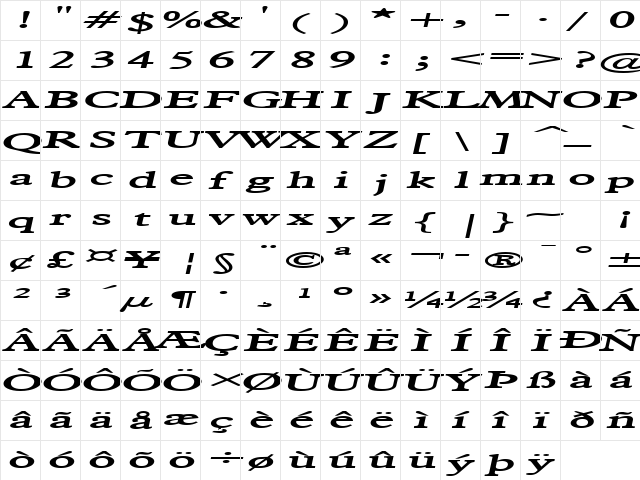
Nadine Extended BoldItalic Font Preview
Design Context for Nadine Extended Typeface
Nadine Extended takes a measured approach to typography — its balanced proportions and neutral character make it a reliable workhorse for both digital and print work. Its italic angle brings a sense of urgency and motion to the letterforms. The heavy weight commands attention and anchors typographic hierarchies.
Pro Tip: Try Nadine Extended for annotation and caption copy alongside an upright companion — the contrast in angle creates a dynamic but ordered typographic system.